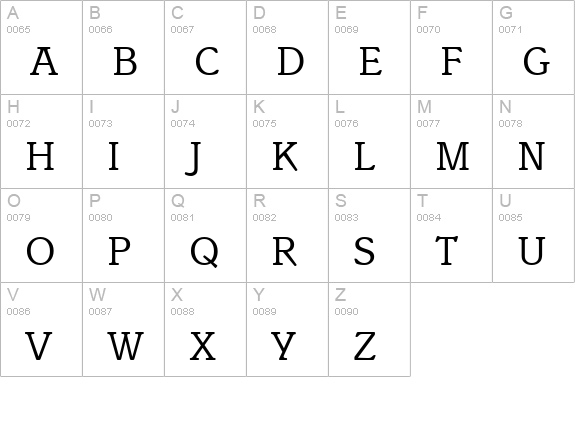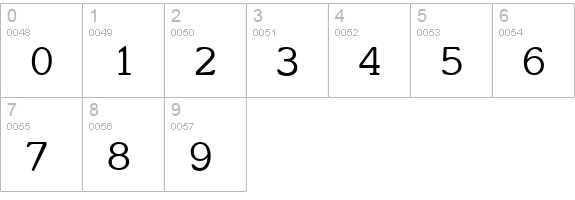
Istria-Book is a comfortable, highly readable variant in the Istria typeface family \xE2\x80\x94 well suited to long-form body text, articles, and editorial content.
Introducing Istria-Book, a modern and elegant font that exudes sophistication and style. With its clean lines and timeless design, Istria-Book is perfect for a wide range of creative projects, from branding to editorial design. This versatile font is sure to make your text stand out and leave a lasting impression. Best of all, Istria-Book is available for free download at FontsMarket.com. That's right, you can add this beautiful font to your collection without having to spend a dime. Don't miss out on the opportunity to elevate your design work with Istria-Book. Download it today and start creating stunning visuals that will impress your audience.